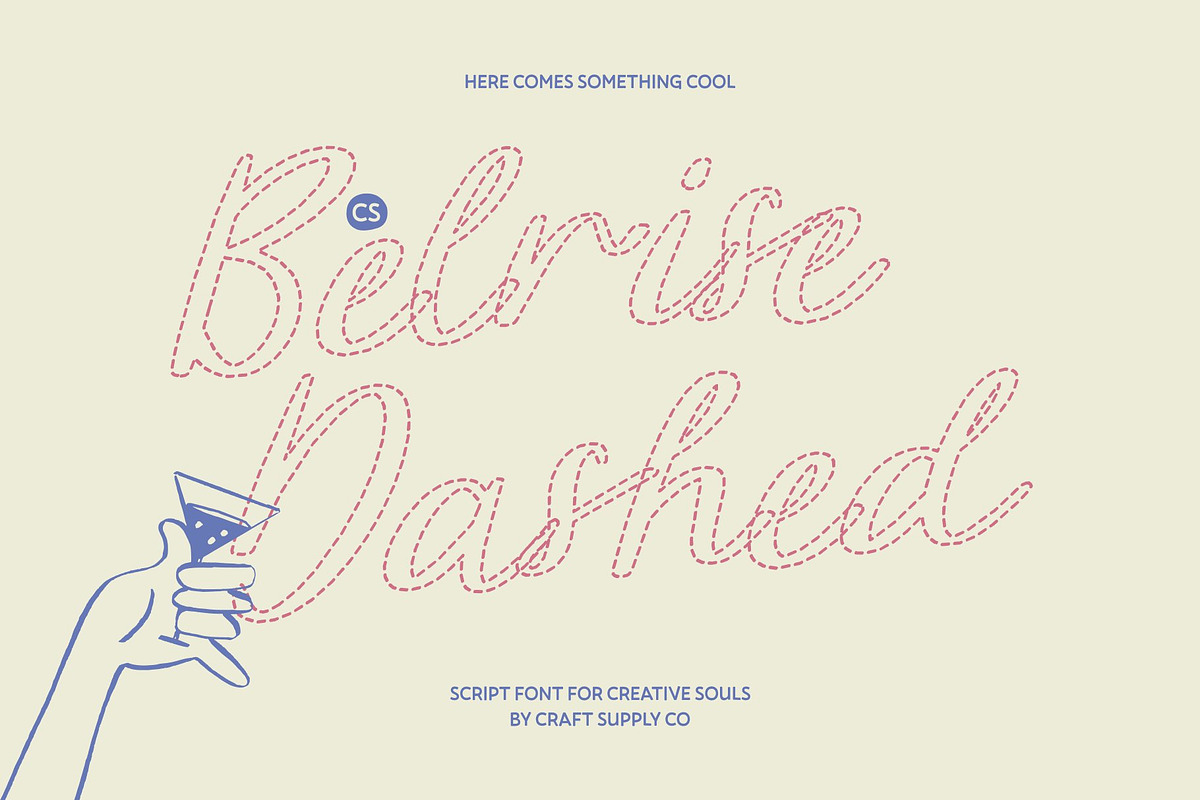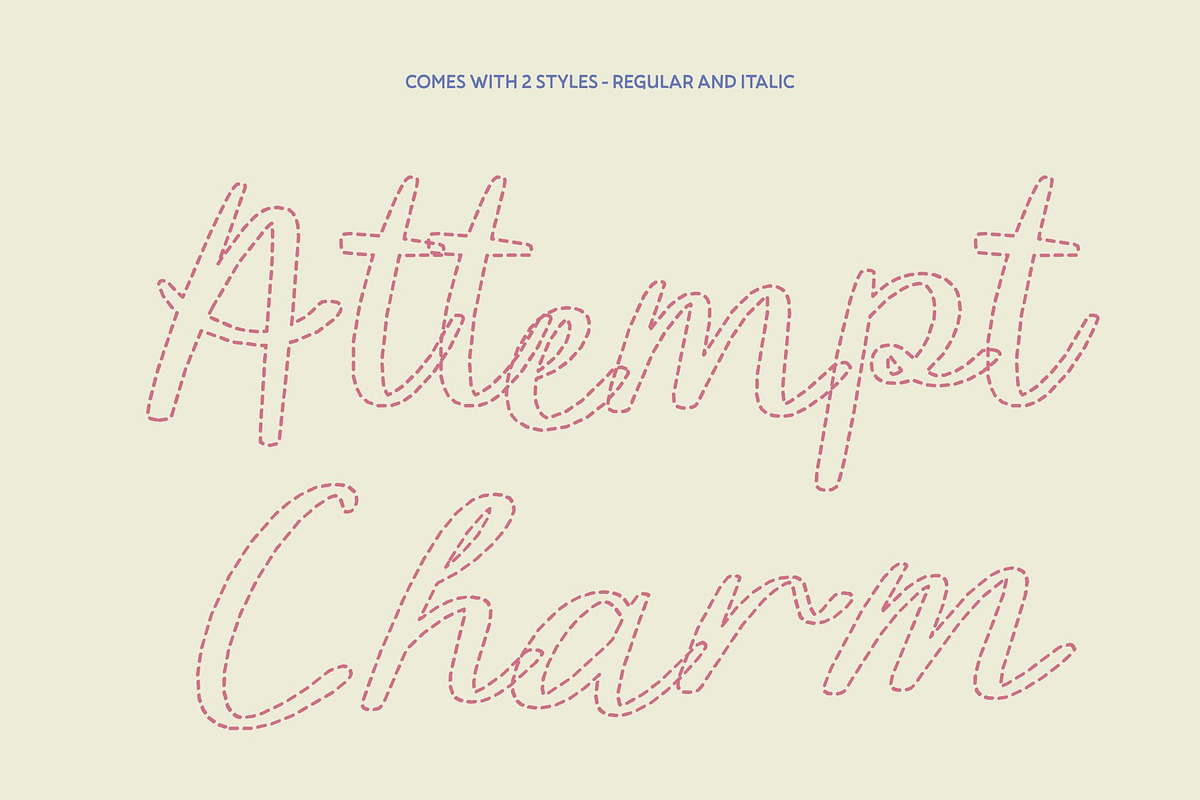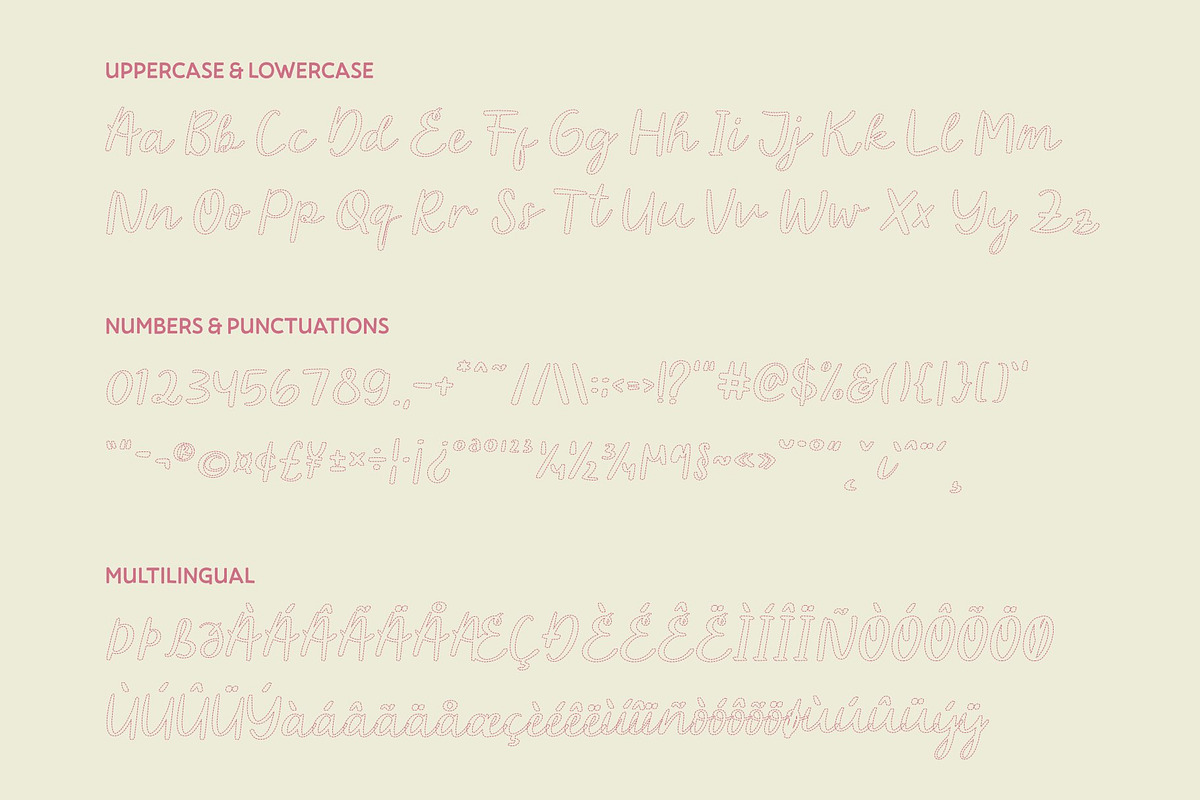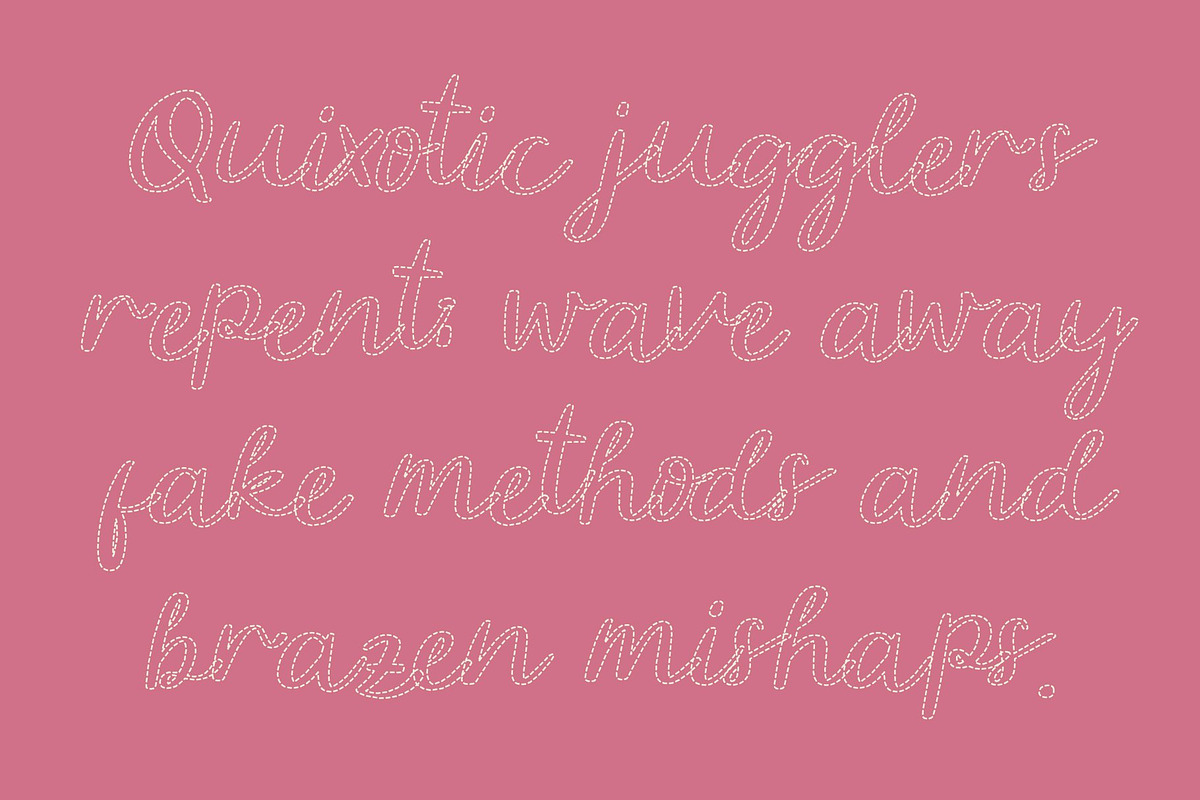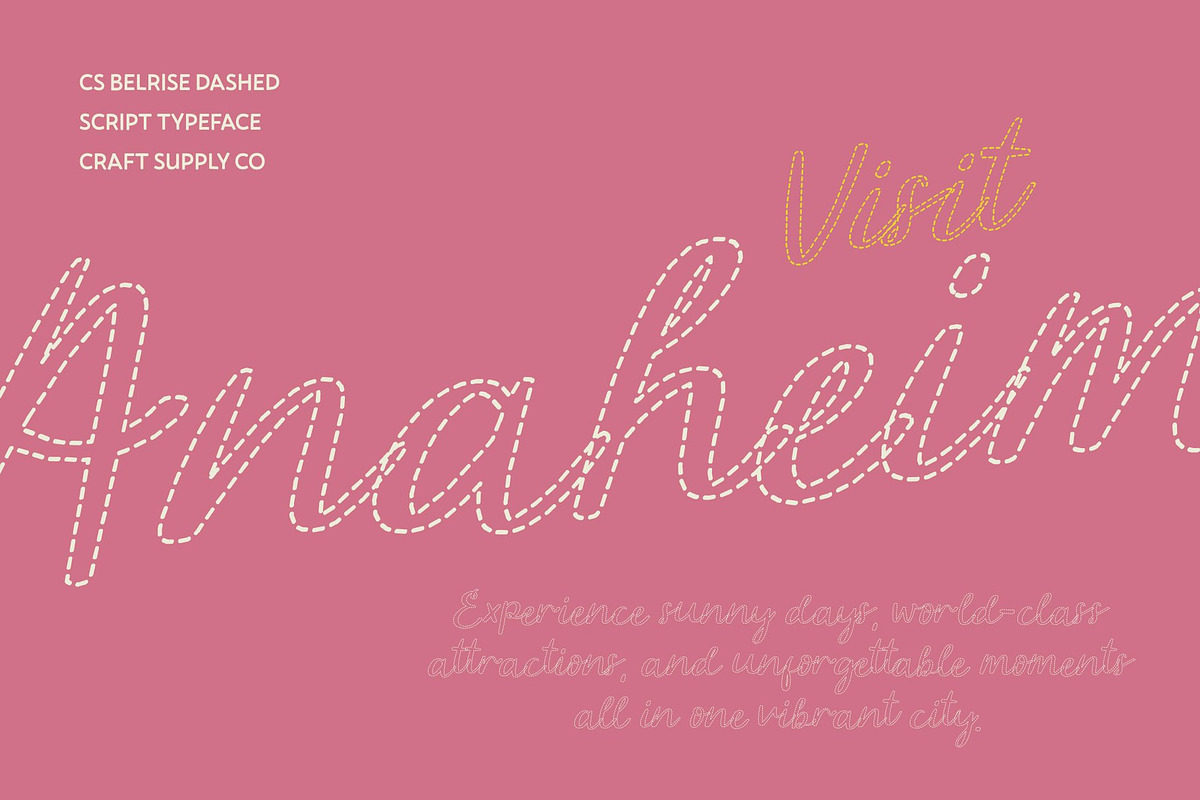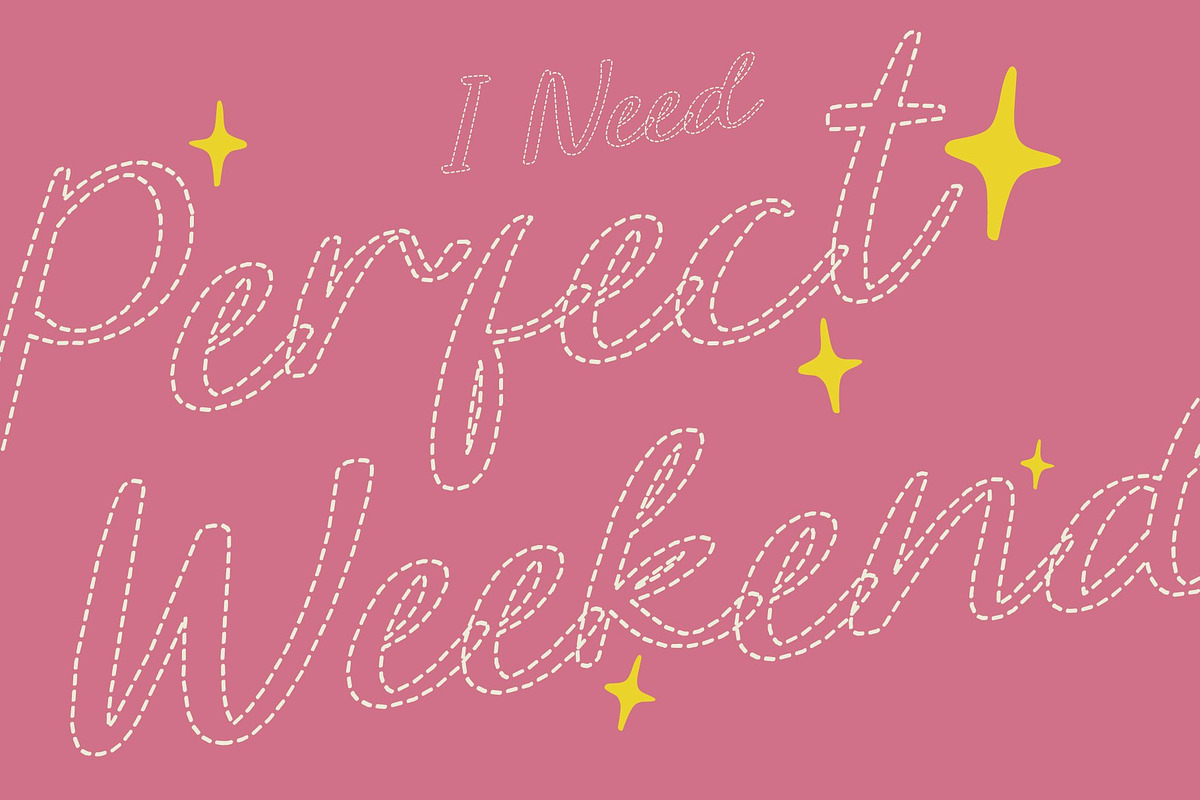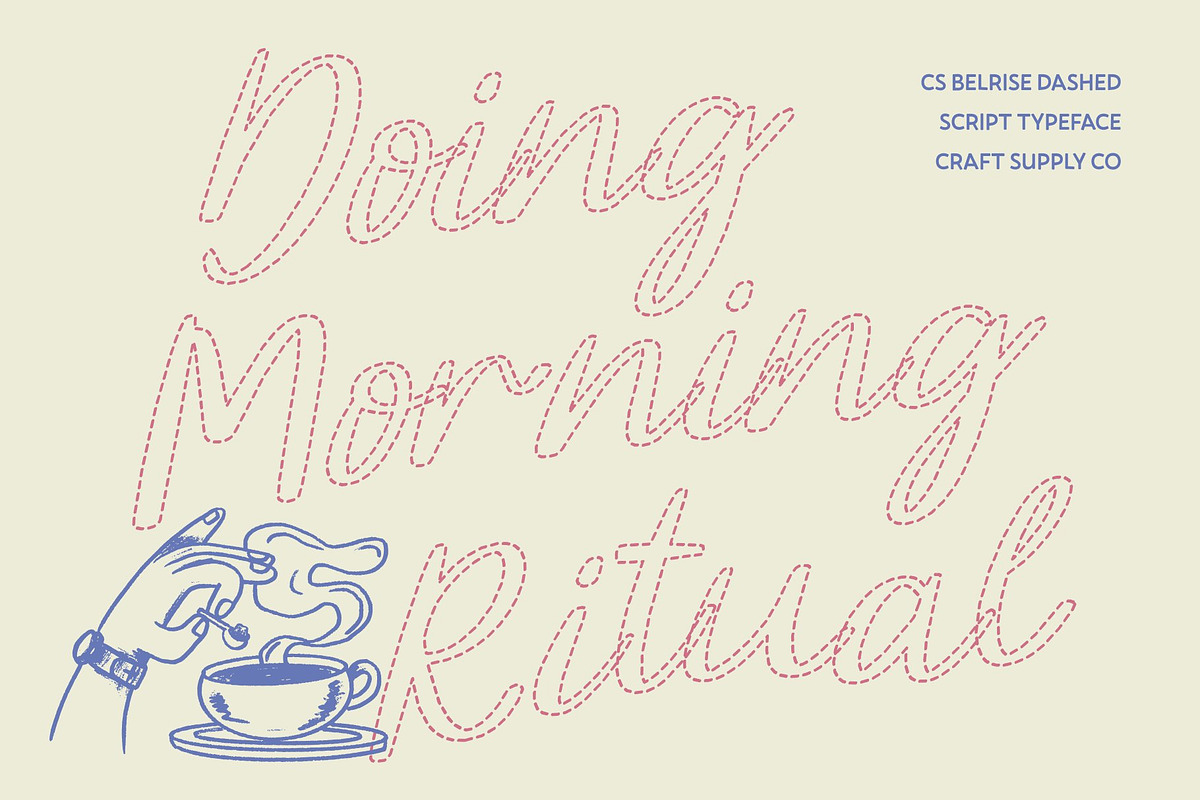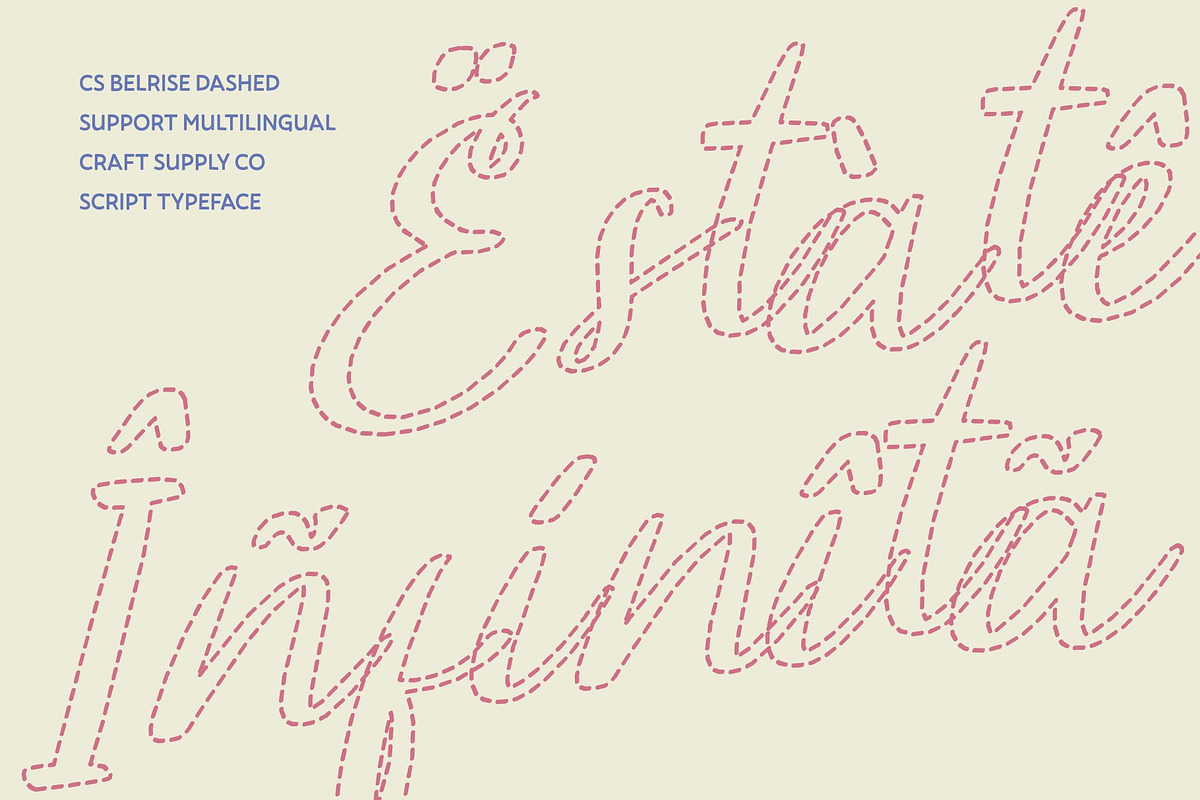
CS Belrise Dashed
CS Belrise Dashed – Beauty Handwriting Script with Mediterranean Grace
Fluid Handwriting with Expressive Dashed Strokes This is a refined handwritten script font where each letter is composed of short, broken strokes that mimic natural pen movement. Its flowing dashed lines create a graceful, airy rhythm, combining the warmth of personal handwriting with a light, artistic touch. The dashed design adds a playful yet elegant flair, making the font feel both handcrafted and contemporary.
Mediterranean Charm for Romantic Expression Inspired by sunlit Mediterranean handwriting, this font captures soft, fluid motion with subtle sophistication. The broken, rhythmic strokes evoke romance, serenity, and effortless elegance. Its airy structure and gentle curves make each word feel intimate, stylish, and visually inviting.
Perfect for Luxury Branding and Packaging The dashed form adds a creative, artisanal edge while preserving clarity and readability. This is ideal for high-end branding, fashion and beauty labels, product packaging, and boutique identities. Its unique combination of sophistication and personality communicates refinement, authenticity, and modern elegance.
Ideal for Weddings, Invitations, and Romantic Projects From wedding stationery to heartfelt greeting cards and lifestyle designs, this font brings emotional warmth and delicate charm to any composition. Its flowing, broken strokes transform ordinary text into a memorable, visually expressive experience that balances grace, style, and personal character.
CS Belrise Dashed Regular
CS Belrise Dashed Italic